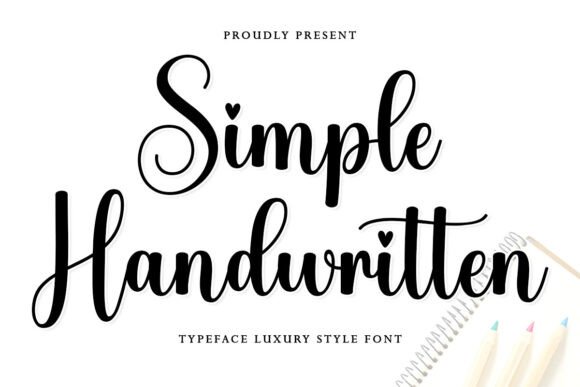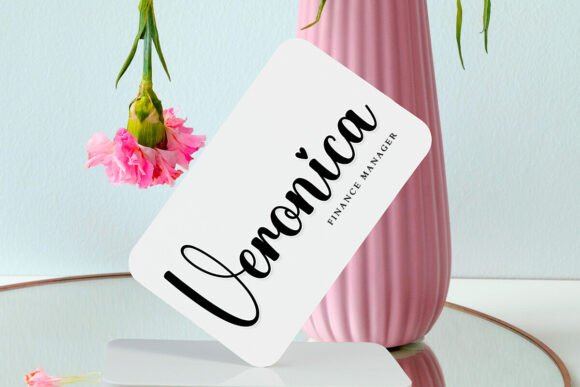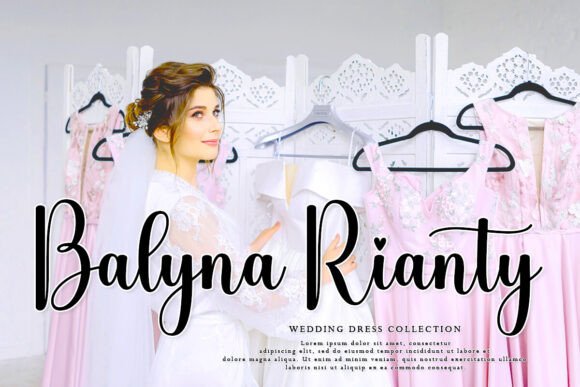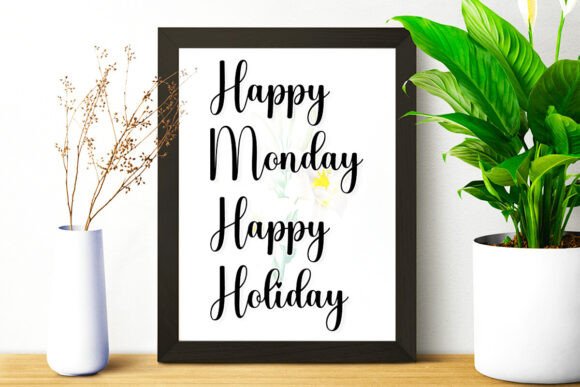
Simple Handwritten Font
About the Simple Handwritten Font
Introducing the Simple Handwritten Font, a beautifully crafted typeface designed to elevate your creative projects. Simple Handwritten is a sweet and cursive handwriting font. This soft font will look beautiful on a variety of design ideas. It will add a fun and romantic touch to any of your projects! It is perfect for branding, logos, wedding favors, greeting cards, fashion, lookbooks, marketing promotions, and whenever you want your designs to look fancy and elegant yet casual.
Simple Handwritten Font Usage Examples
Simple Handwritten Font Example